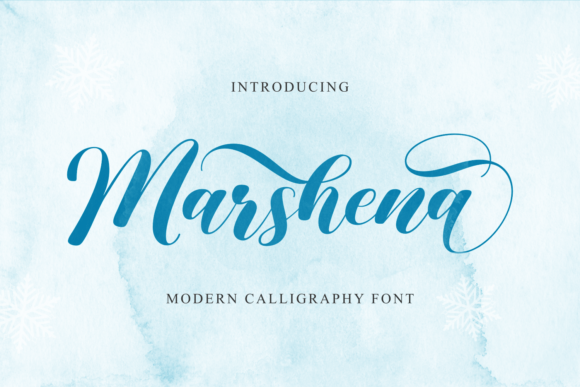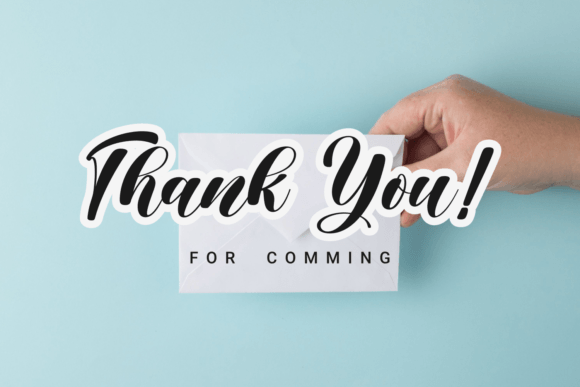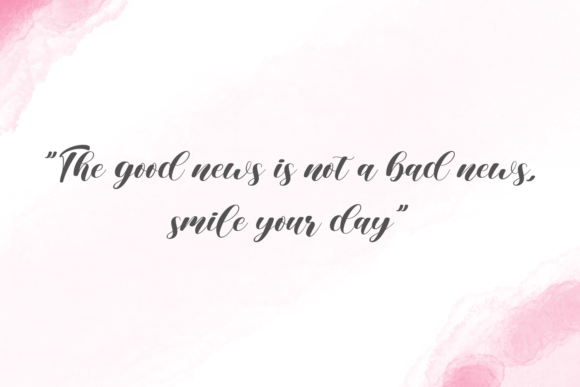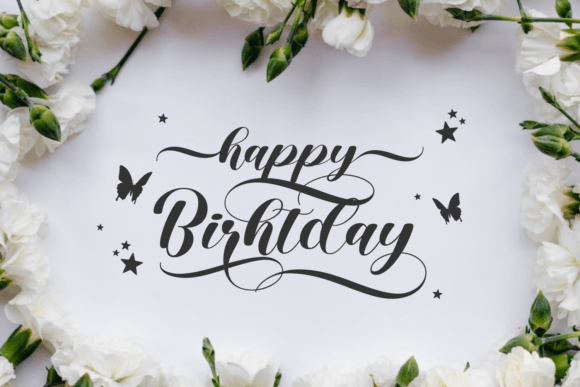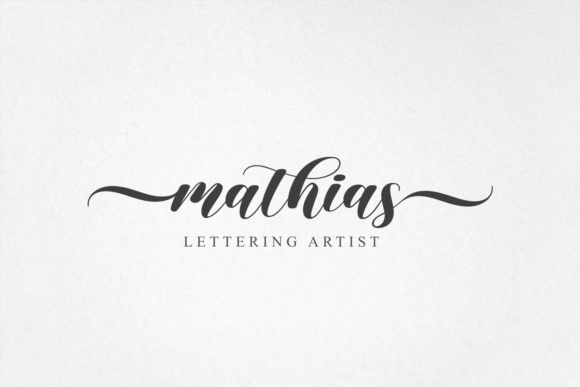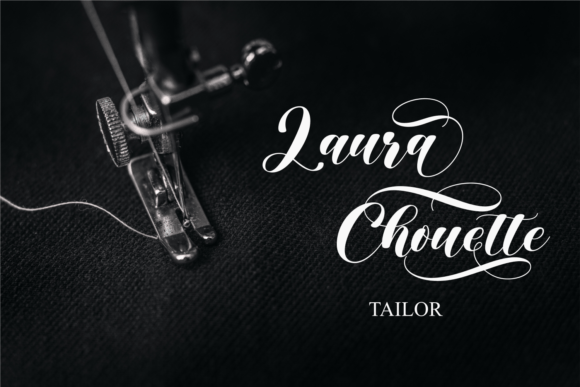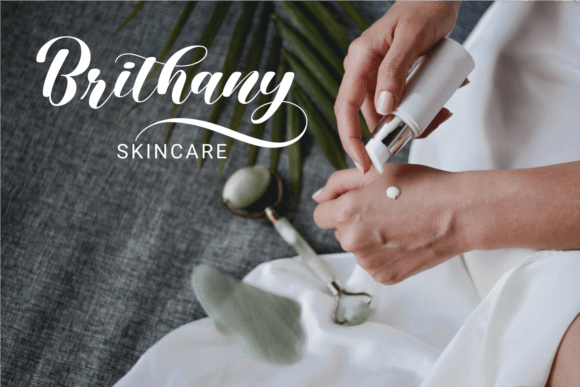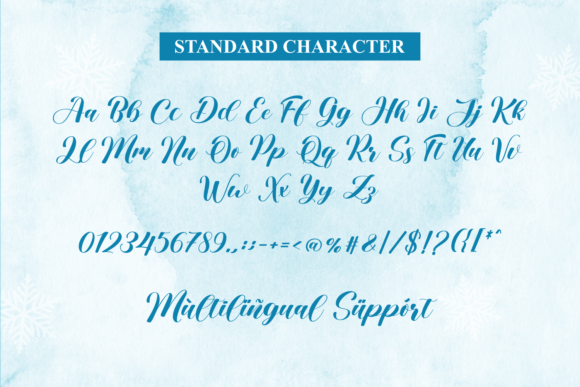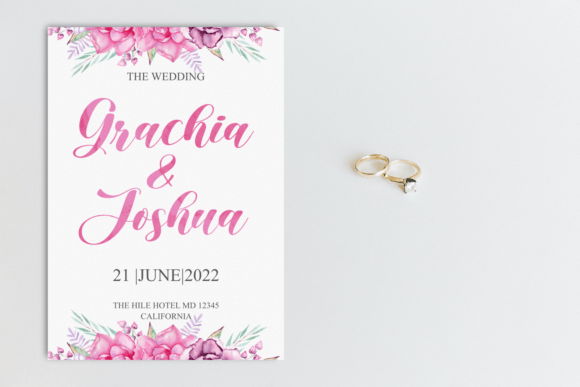
Marshena Font
About Marshena Font
Introducing Marshena, a sweet and elegant handwritten font designed to add a touch of sophistication to your most creative projects. This font is versatile and suitable for various applications, making it an excellent choice for wedding invitations, birthday cards, thank you notes, and more.
The charm of Marshena lies in its sweet and elegant handwritten style, which adds a sense of refinement and grace to your designs. Whether used in digital designs or print materials, this font is crafted to enhance the overall visual appeal.
For wedding invitations, Marshena brings a romantic and elegant touch. The font’s well-balanced characters and handwritten style add an extra layer of beauty to the invitations, creating a memorable and refined presentation.
In birthday cards and thank you notes, Marshena carries a sense of sweetness and sophistication. The font’s elegant script enhances your messages, creating a heartfelt and stylish communication.
Marshena is versatile and adaptable, making it suitable for a variety of design contexts where a sweet and elegant handwritten style is desired. Whether you’re working on digital designs or print materials, this font is designed to bring a touch of refinement to your creative projects.
In conclusion, Marshena is a sweet and elegant handwritten font perfect for wedding invitations, birthday cards, and more. Choose Marshena to infuse your designs with a touch of sophistication, creating visually appealing and refined outcomes across a variety of creative applications.